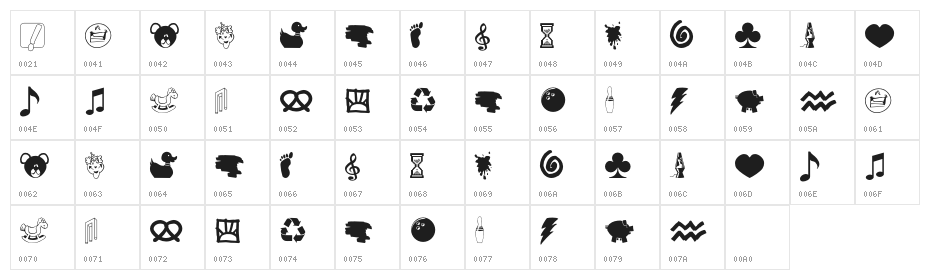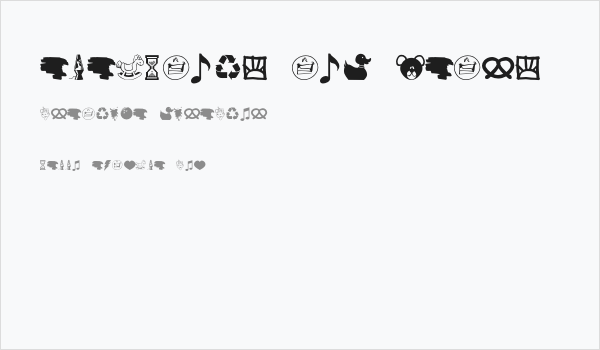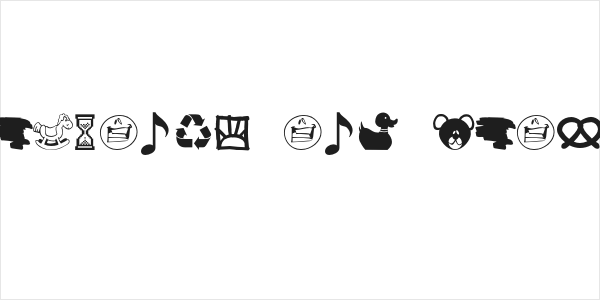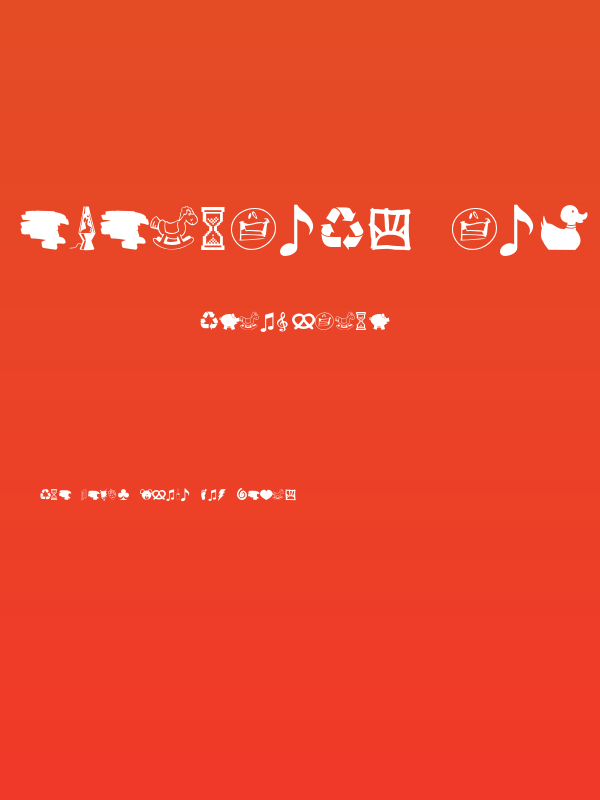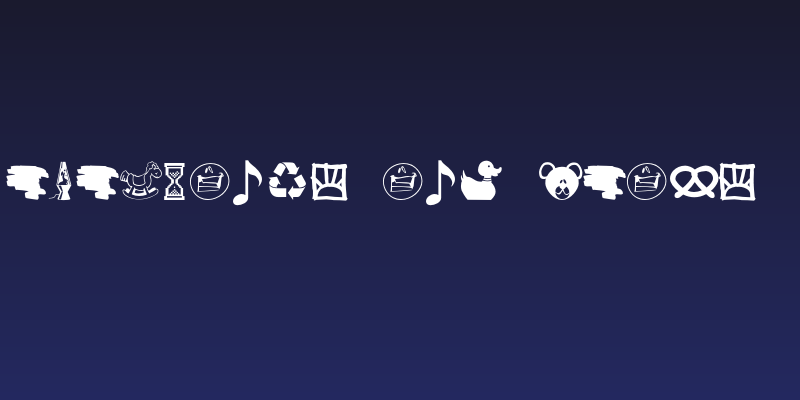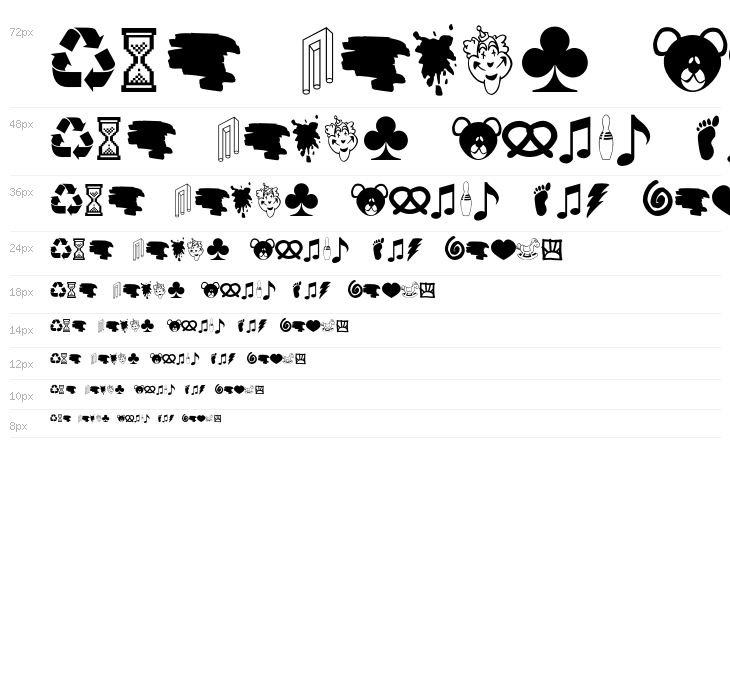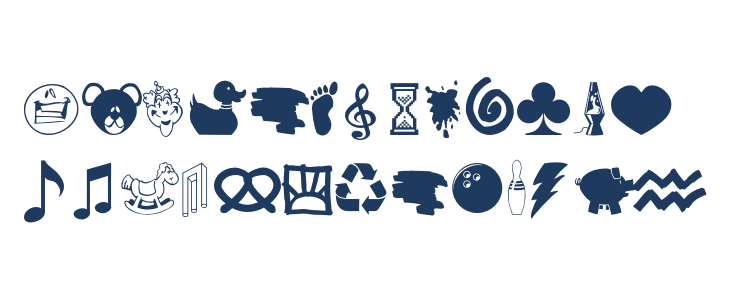
Elephants and Bears Font
Elephants and Bears Description
This is a decorative font featuring a variety of playful and whimsical symbols. The characters include a mix of animals, musical notes, and other fun icons, each with a bold and solid appearance. The style is cartoonish and lively, making it suitable for creative and informal projects. The symbols are evenly spaced and maintain a consistent size, providing a uniform look across the set. This font is ideal for adding a touch of fun and creativity to designs, especially those aimed at children or casual audiences.
| Use Case | Logos, Posters, Creative projects |
| Proposed Projects | Ideal for children's books, playful posters, party invitations, and creative branding projects. |